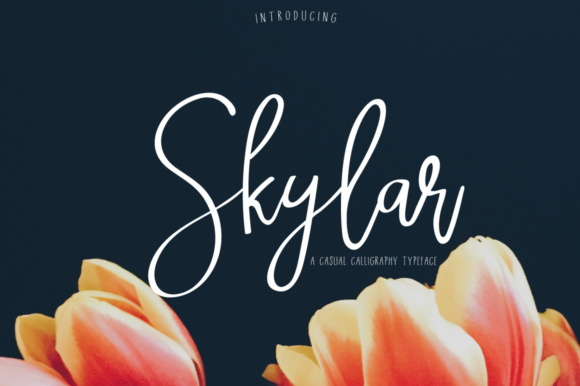
Do you have a vision for your next design project? But can't find the right font to bring it to life? Look no further! Introducing Skylar Font, the answer to all your font-related dilemmas. As a script font with a multitude of letter variations, Skylar Font grants you the creative freedom to experiment and design your project to perfection.
Skylar Font is the brainchild of renowned font designer, Studio_Art, who has poured its heart and soul into crafting this masterpiece. And it shows! Every curve, every stroke, and every flourish in the Skylar Font exudes elegance and originality. Whether you're a seasoned designer or just starting your creative journey, Skylar Font is the perfect tool to elevate your designs to new heights.